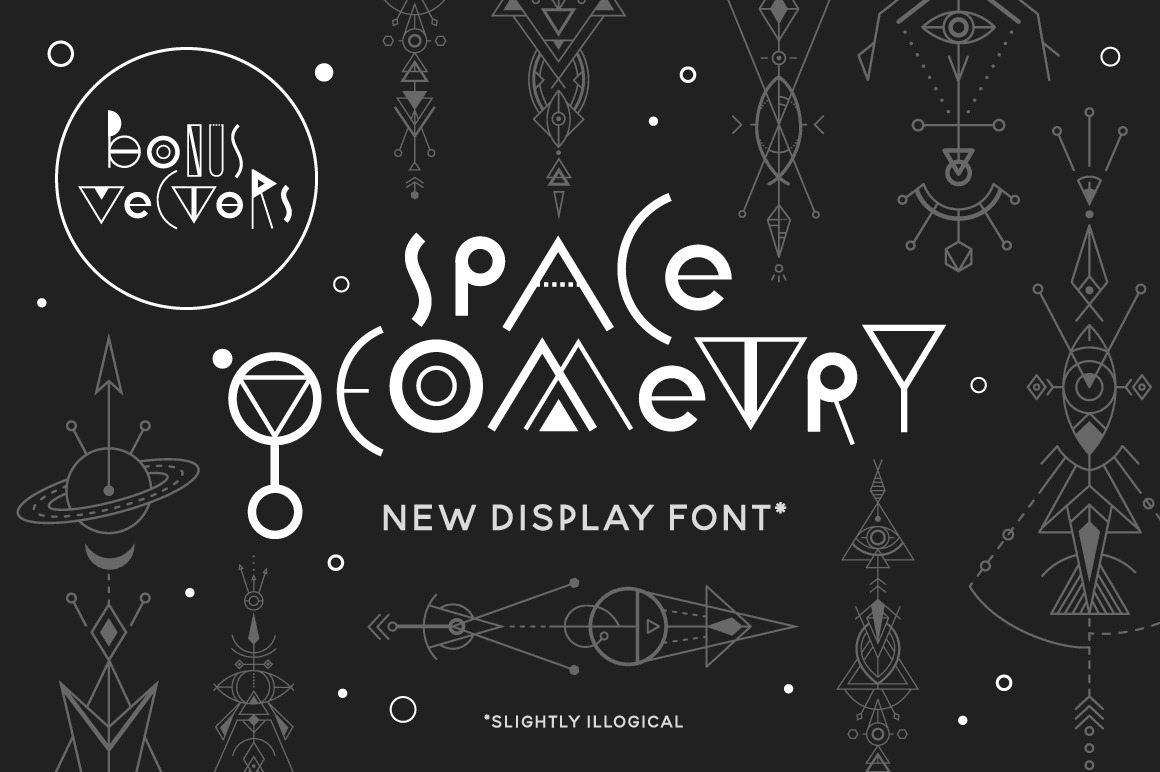
Space Geometry Font+ Bonuses
This is a new display geometric font, and a lot of nice bonuses! You can use it to make logos, display letterings, packaging, posters, greeting cards, merchandize like t-shirts of mugs, and much more!!
- 1 OTF Space Geometry Font, where you can change uppercase and lowercase any minute to make alternative letterings!
- 1 OTF Decorative Geometry font of images, which is made of geometric ornaments. Don't try to read it :)